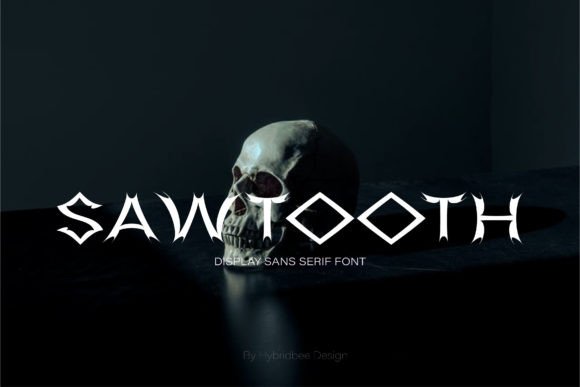
Prepare to be mesmerized by Sawtooth Font, a typographic masterpiece that will transform your creative visions into stunning realities. This sans-serif display font, meticulously crafted by Hybridbee Design, embodies the essence of contemporary elegance with a touch of Gothic allure. Its distinctive letterforms, sharp angles, and captivating curves create an aura of sophistication and modernity that is sure to leave a lasting impression.
Unleash your creativity and embrace the boundless possibilities that Sawtooth Font offers. Design captivating posters that demand attention, craft headlines that resonate with power and impact, and establish a brand identity that exudes confidence and distinction. Elevate your packaging designs to new heights of allure, leaving customers spellbound by the intricate beauty of your products. Create logos that embody the essence of your brand, leaving an indelible mark on the minds of your audience.
With its versatility, Sawtooth Font effortlessly adapts to a myriad of design projects, seamlessly blending with your creative vision. Whether you're designing for web or print, Sawtooth Font delivers exceptional results, ensuring that your designs shine with brilliance and originality. Experience the transformative power of Sawtooth Font and unlock a world of design possibilities that will redefine your creative boundaries.
Immerse yourself in the world of Sawtooth Font and discover the endless opportunities it presents. From striking posters that command attention to captivating headlines that ignite curiosity, Sawtooth Font empowers you to create visual masterpieces that leave an unforgettable impression. As you explore the depths of its design potential, you'll uncover a font that breathes life into your creative endeavors, turning concepts into tangible expressions of brilliance.